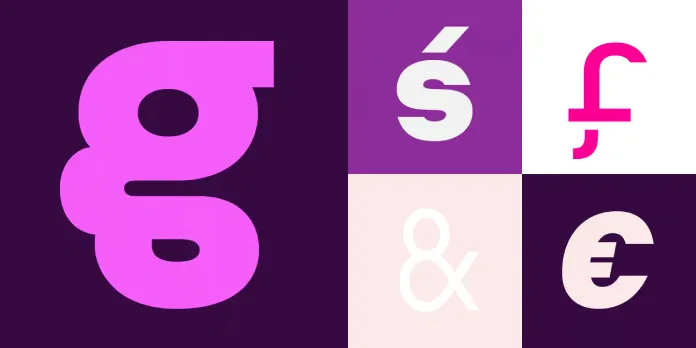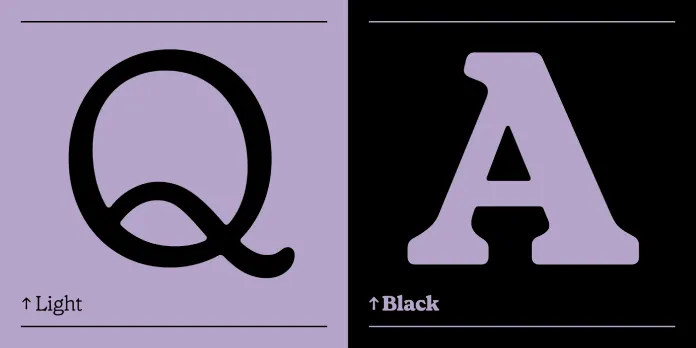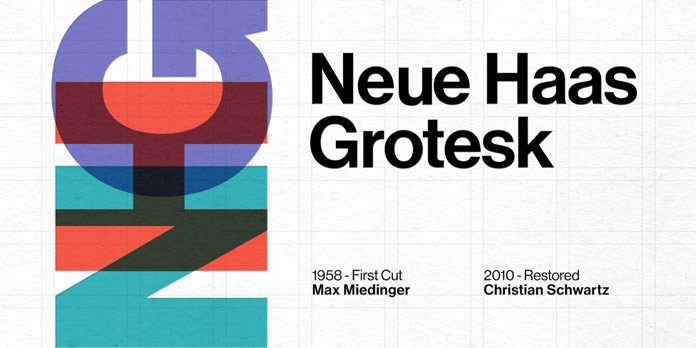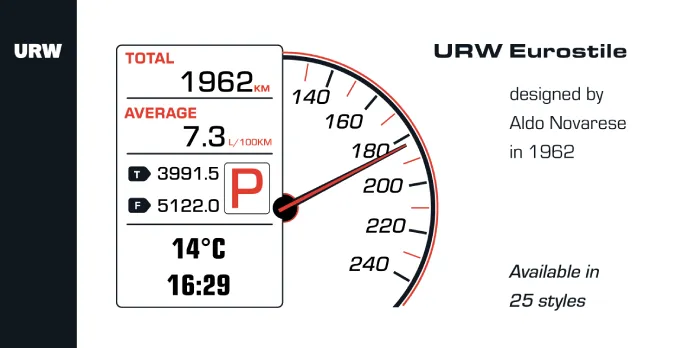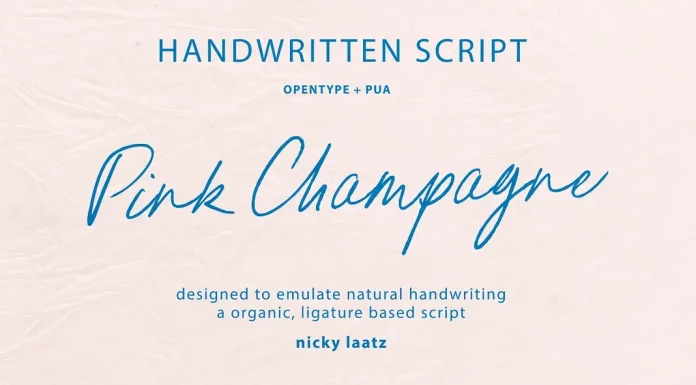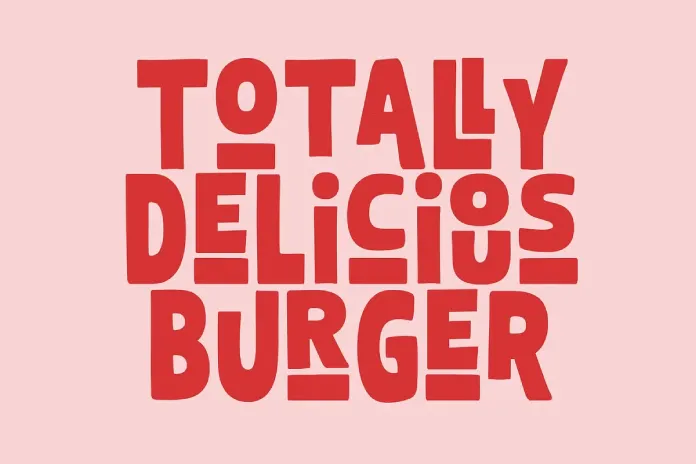
Browse our extensive list of 50 popular fonts based on the top 10 typography trends designers will love in 2025.
We have looked intensively at both current and emerging typography and font trends. Thanks to our global community and close contact with many font designers, we have received a lot of feedback, suggestions, and completely new insights. As we look ahead to 2025, the world of typography is set for exciting changes, while we also see some classics again. Designers gravitate toward more versatile, expressive, and innovative fonts as digital media expands into new realms. Typography continues to evolve with technological advances, including variable fonts, AI, and the resurgence of creative, custom typefaces. Here’s a forecast of the top typography trends in 2025, along with five examples of some of the best fonts for each trend.
1. Neo-Humanist Sans-Serifs
So here we are with our first typography trend that will be very popular in 2025. Neo-humanist sans-serifs blend the structure of geometric fonts with the warmth of humanist designs. These typefaces provide a good balance between precision and personality, offering flexibility across branding and digital platforms. As our beloved minimalism shifts toward a more human-centric approach, these fonts will dominate corporate, tech, and editorial design.
- GT Eesti by Grilli Type
A modern, humanist sans-serif with a warm, friendly tone. GT Eesti combines geometric precision with soft curves, making it versatile for branding and digital content. - Calibre by Klim Type Foundry
A neutral yet approachable sans-serif, known for its clean lines and modernist influence. It’s often used in tech and editorial design for its clarity. - Maison Neue by Milieu Grotesque
A contemporary sans-serif that balances geometric structure with humanist warmth. Maison Neue is ideal for both print and digital use, adding personality without losing readability. - Agrandir by Pangram Foundry
A bold, expressive sans-serif that emphasizes simplicity while allowing for slight quirks in the letterforms, perfect for editorial design. - Roboto Flex by Font Bureau
An enhanced version of the popular Roboto, this variable font offers flexibility with multiple weights and styles, making it adaptable across a range of projects.
2. High-Contrast Serifs
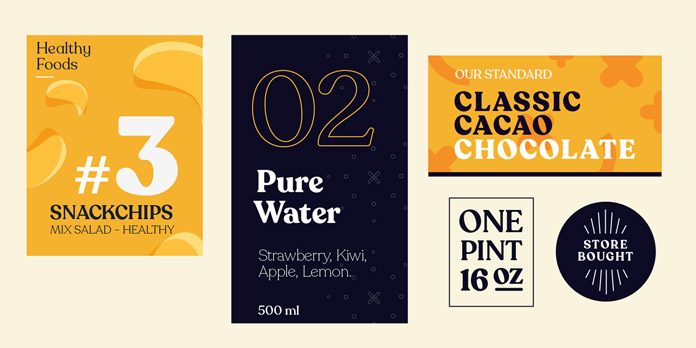
High-contrast serif fonts are returning, driven by the trend toward bold, expressive typography. These fonts stand out with dramatic differences between thick and thin strokes, providing a sense of luxury and elegance. They are perfect for branding, editorial design, and high-end fashion.
- Didot by Linotype
A classic, high-contrast serif known for its elegance and sophistication. It’s frequently used in fashion magazines and luxury branding. There are many more Didot fonts available from various foundries, each offering unique interpretations of this timeless typeface. - Spectral by Production Type
A versatile, high-contrast serif designed for screen readability. Spectral combines elegance with functionality, ideal for editorial and digital media. - Recoleta by Latinotype
A retro-inspired serif that blends modern and vintage elements. Its high contrast and soft curves make it suitable for bold headlines in branding and editorial projects. - Noe Display by Schick Toikka
A high-contrast serif with striking features, perfect for making a bold statement in headlines, particularly in fashion and luxury design. - Farnham Display by Christian Schwartz
A modern serif with high contrast, known for its refined forms. Farnham is ideal for editorial design, combining readability with sophistication.
3. Variable Fonts
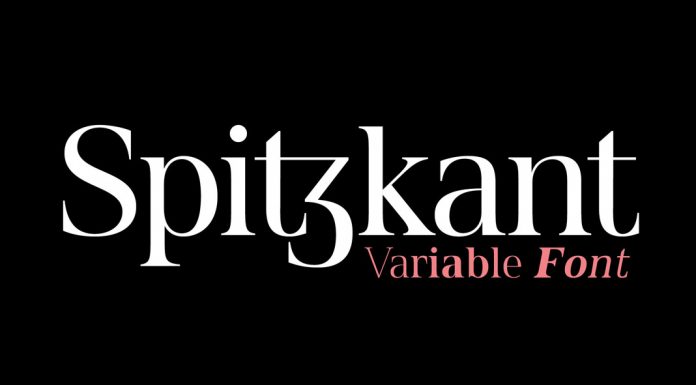
Variable fonts are becoming the cornerstone of modern responsive design. These fonts allow for an infinite range of adjustments—weight, width, slant—all from a single file. This makes them ideal for digital environments where adaptability and performance are key.
- Acumin Variable Concept by Robert Slimbach for Adobe Originals
A versatile sans-serif that allows for precise adjustments in weight and width. It’s ideal for responsive web design, offering flexibility without sacrificing legibility. - Inter by Rasmus Andersson
A clean, modern sans-serif designed for digital interfaces. Its variable font capabilities make it perfect for web and mobile designs where flexibility is essential. - Source Sans 3 Variable by Paul D. Hunt. for Adobe Originals
A reliable, open-source sans-serif that offers multiple variations in weight and width. Source Sans is widely used in digital projects for its adaptability. - Spitzkant Variable by Fincker Font Cuisine
The variable version of Spitzkant, a serif font family that is characterized by strong contrasts. It is characterized by pointed, sharp serifs and edges that contrast with round and fine shapes, making them very individual and expressive. - Helvetica Now Variable by Monotype
Helvetica Now Variable is a versatile typeface offering full dynamic control over width, weight, and optical size, providing designers with enhanced flexibility while retaining the classic Helvetica style.
4. Playful Geometric Sans-Serifs